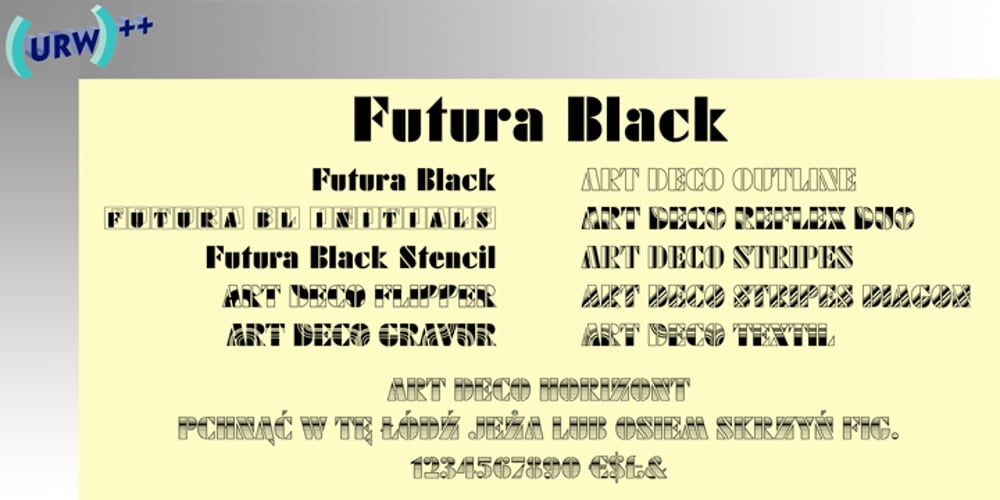
Futura Black Font Family was designed by Paul Renner and published by URW Type Foundry. Futura Black contains 3 styles and family package options. The Futura Black font, related to the Futura font family is boldly geometric and has detached strokes suggesting stencil lettering.